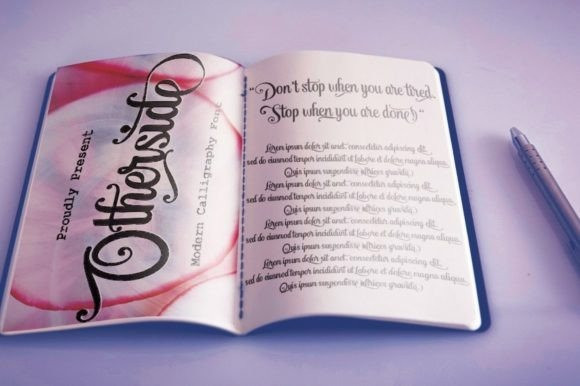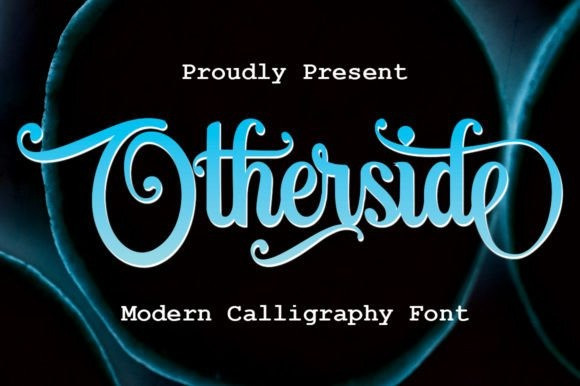
Otherside Font
Otherside Calligraphy Font is a classic and simple handwritten font, created in a free and random style. Use it to turn any design idea into a true standout. Get inspired by its unique charm and create lovely designs.
Otherside is suitable for logotypes, headlines, corporate identity, brand identity, apparel industry, posters, music, movies, games, magazines, books, comics, cartoons, YouTube, Instagram, website, or any of your creative design projects.